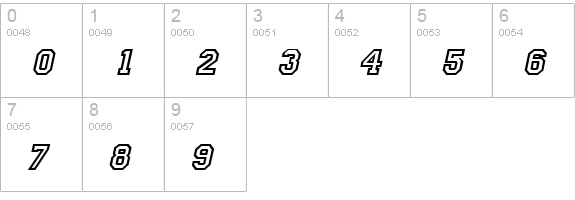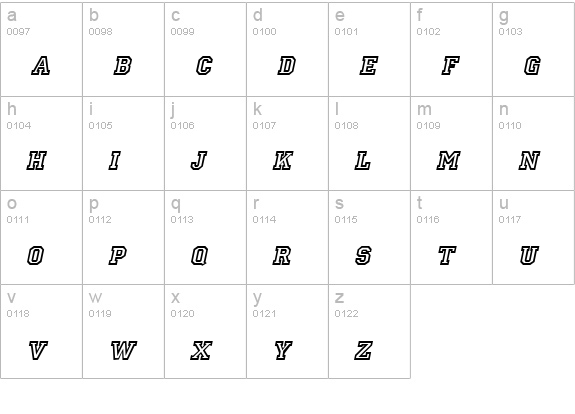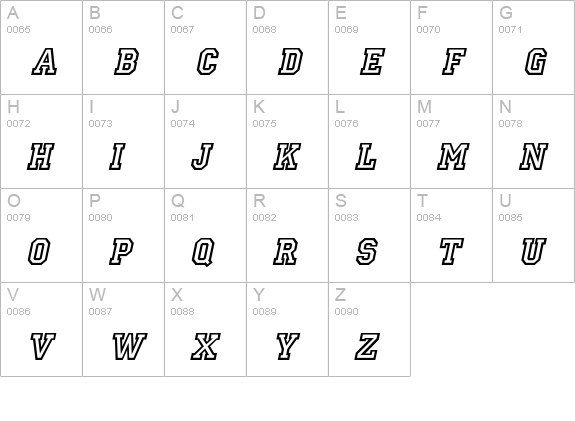
Letterman Italic is a distinctive, italic variant in the Letterman typeface family \xE2\x80\x94 well suited to design and typography projects.
Introducing Letterman Italic, a stunning and versatile font that exudes elegance and sophistication. This font is the perfect choice for those seeking a touch of class in their designs, whether it be for logo branding, invitations, headlines, or any other creative project. With its sleek and slanted letterforms, Letterman Italic adds a contemporary twist to traditional serif fonts, making it the ideal choice for modern designs. Its unique italicized style brings a sense of dynamism and movement, capturing attention and leaving a lasting impression. But what sets Letterman Italic apart is that it is not only visually captivating but also completely free. Yes, you read that right! This exquisite font is freely available to download at FontsMarket.com, allowing you to enhance your designs without breaking the bank. Letterman Italic boasts an extensive character set, including uppercase and lowercase letters, numerals, punctuation marks, and special characters. Its smooth curves and impeccable spacing ensure legibility at any size, making it a versatile choice for both print and digital applications. Whether you're a professional designer or a DIY enthusiast, Letterman Italic is a must-have addition to your font collection. Its timeless appeal and effortless elegance will elevate your designs to new heights, making them stand out from the crowd. So why wait? Don't miss out on this incredible opportunity to enhance your creative projects with the beauty and finesse of Letterman Italic. Download it today, completely free, at FontsMarket.com, and let your imagination run wild.